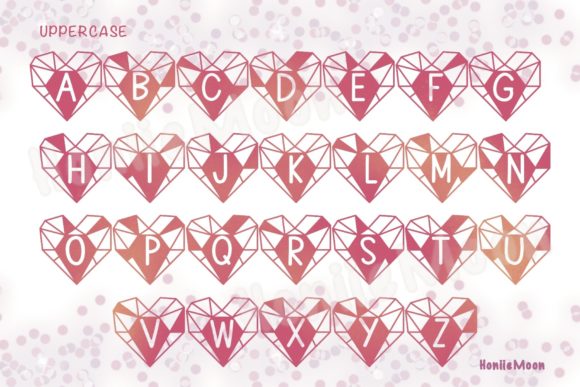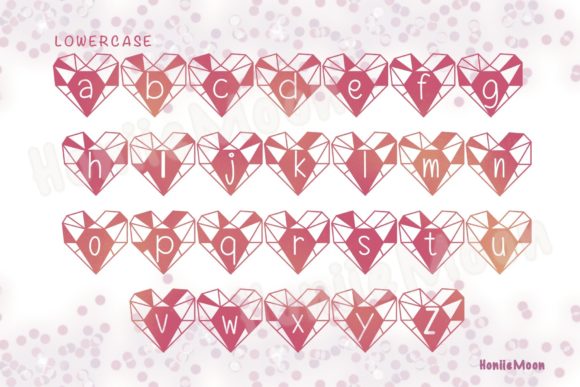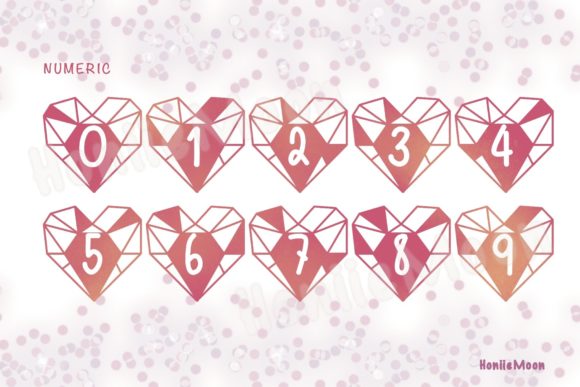
Introduction to Rose Quartz Font
Rose Quartz is a cool and original decorative font.
It looks both sparkly and unique and it will enhance each of your designs The only limit is your imagination.